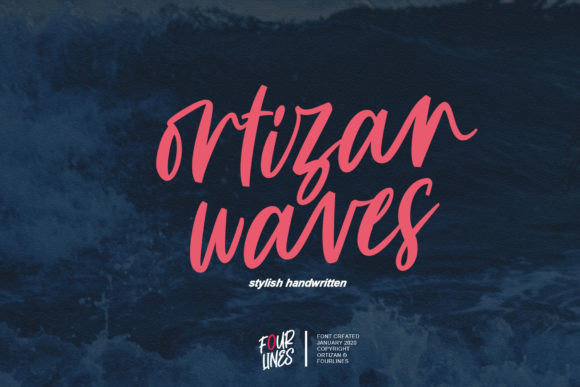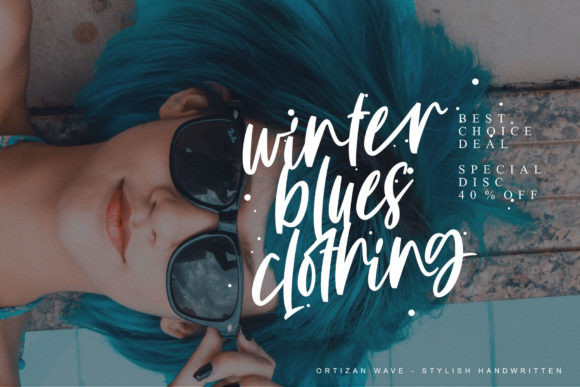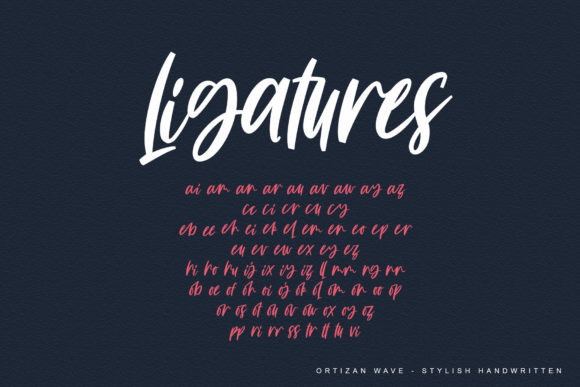
Ortizan Waves Font
Ortizan waves is a lovely stylish script font. It has beautiful and flowing characters and as a result, it matches a wide pool of designs. Have fun with this beautiful font and explore its endless variations.